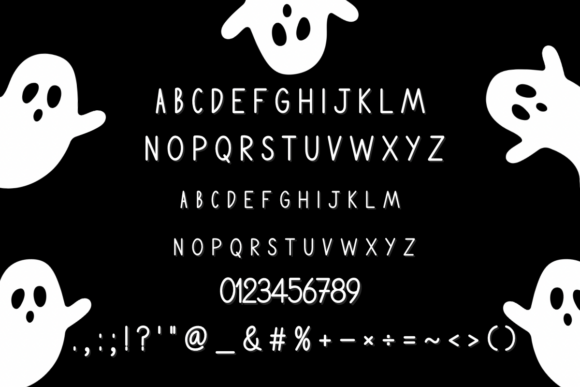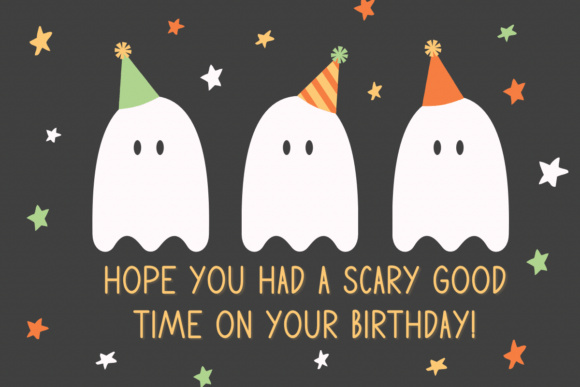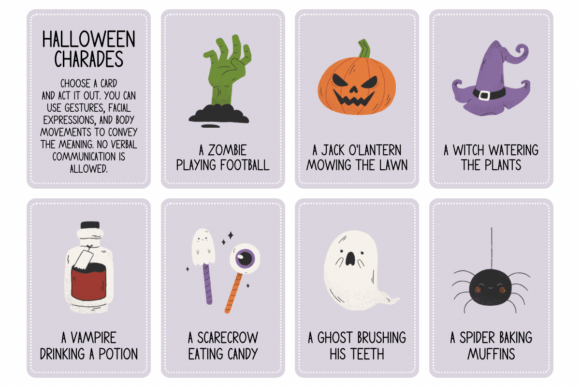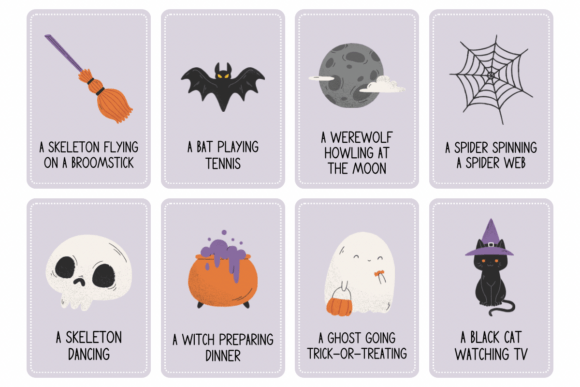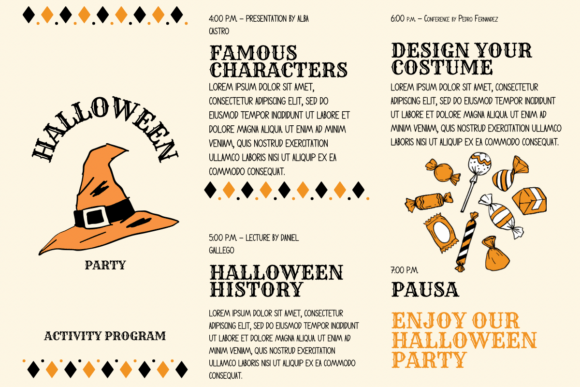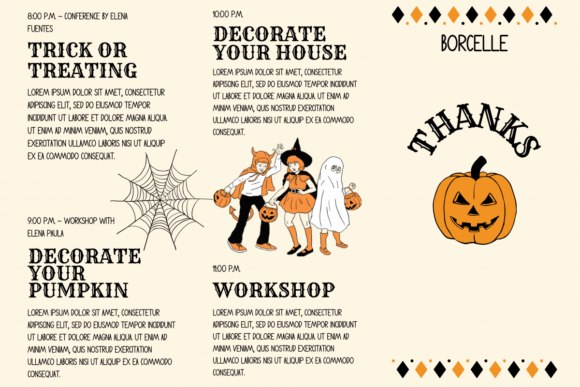
Unleash the Spooky Charm with Ghost Halloween Font
As the spookiest time of the year approaches, designers and crafters are on the lookout for the perfect typography to bring their Halloween-themed projects to life. Look no further than the Ghost Halloween sans-serif font, a playful and eerie typeface that’s sure to cast a spell on your audience. With its clean, rounded letterforms and subtle hand-drawn vibe, this font strikes the perfect balance between simplicity and character, making it an ideal choice for a wide range of creative projects.
A Font that Embodies the Spirit of Halloween
The Ghost Halloween font is designed to capture the essence of the spooky season, with tall, narrow strokes and slightly whimsical proportions that give it a fun yet modern aesthetic. Its quirky tone adds personality to any design, making it perfect for Halloween-themed posters, party invitations, greeting cards, and social media graphics. Whether you’re creating a haunting invitation for a spooky soiree or a playful pumpkin patch sign, this font is sure to add a touch of ghostly charm to your project.
Clean, Readable, and Versatile
One of the standout features of the Ghost Halloween font is its clean, rounded letterforms, which ensure readability even at smaller font sizes. This makes it perfect for designs that require a clear and concise message, such as party invitations, flyers, or social media graphics. At the same time, the font’s subtle hand-drawn vibe adds a touch of personality and whimsy, making it perfect for designs that require a more playful approach.
Pair it with Bold Graphics or Minimalist Layouts
The Ghost Halloween font is incredibly versatile, and can be paired effortlessly with bold graphics or minimalist layouts. Its modern aesthetic and quirky tone make it a great match for designers who want to add a touch of personality to their designs without overpowering the overall aesthetic. Whether you’re creating a spooky poster with bold graphics or a simple yet effective social media graphic, this font is sure to complement your design perfectly.
The Ghost Halloween font is a must-have for designers and crafters who want to add a touch of spooky charm to their Halloween-themed projects. Its unique blend of simplicity and character makes it perfect for a wide range of creative projects, from commercial designs to personal crafts. With this font, you can create:
- Haunting party invitations that set the tone for a spooky soiree
- Playful pumpkin patch signs that add a touch of whimsy to your fall decor
- Eye-catching social media graphics that are sure to grab attention
- Creepy yet charming posters that showcase your design skills
Get Creative with Ghost Halloween Font
The Ghost Halloween font is more than just a typeface – it’s a creative tool that can help you bring your Halloween-themed projects to life. With its unique blend of simplicity and character, this font is sure to inspire you to create designs that are both spooky and charming. So why wait? Download the Ghost Halloween font today and unleash your creativity!
Key Features of Ghost Halloween Font
- Clean, rounded letterforms for improved readability
- Subtle hand-drawn vibe for a touch of personality
- Tall, narrow strokes for a spooky yet modern aesthetic
- Slightly whimsical proportions for a playful touch
- Versatile style that pairs well with bold graphics or minimalist layouts
The Ghost Halloween font is a must-have for designers and crafters who want to add a touch of spooky charm to their Halloween-themed projects. With its unique blend of simplicity and character, this font is sure to inspire you to create designs that are both spooky and charming. So why wait? Download the Ghost Halloween font today and unleash your creativity!